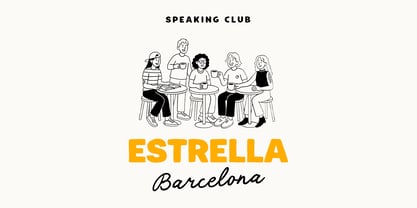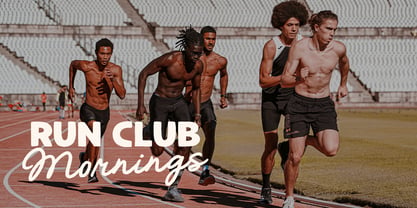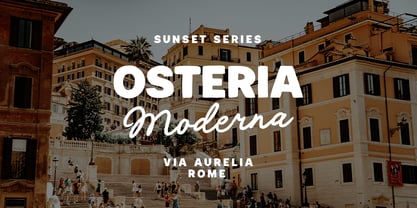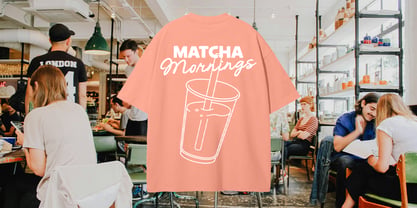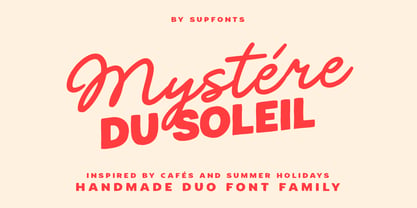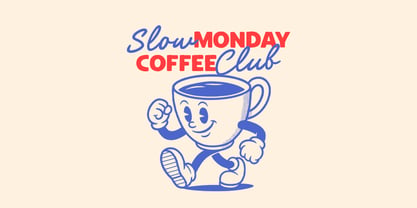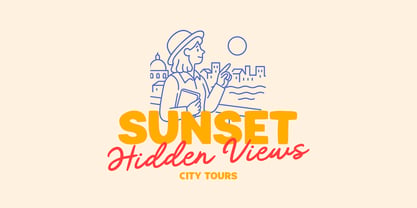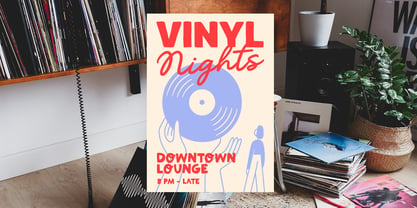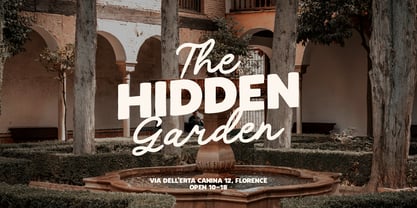
Mystere du Soleil
The Mystere du Soleil Font Family was designed by Dmitrii Chirkov and published by Supfonts. Mystere du Soleil contains 2 styles and family package options. More about this family
Mystere du Soleil is a charming handmade duo font that combines a lively, flowing script with a bold, confident sans serif. Inspired by sunny cafés, summer holidays, and effortless French style, it brings warmth and authenticity to your designs. Perfect for logos, boutique branding, packaging, menus, wedding invitations, and social media graphics, this duo offers versatility and a personal, handcrafted feel. With multilingual support, Maison du Soleil is ideal for projects that need to capture a sense of joy, elegance, and approachable sophistication, making your work stand out beautifully.